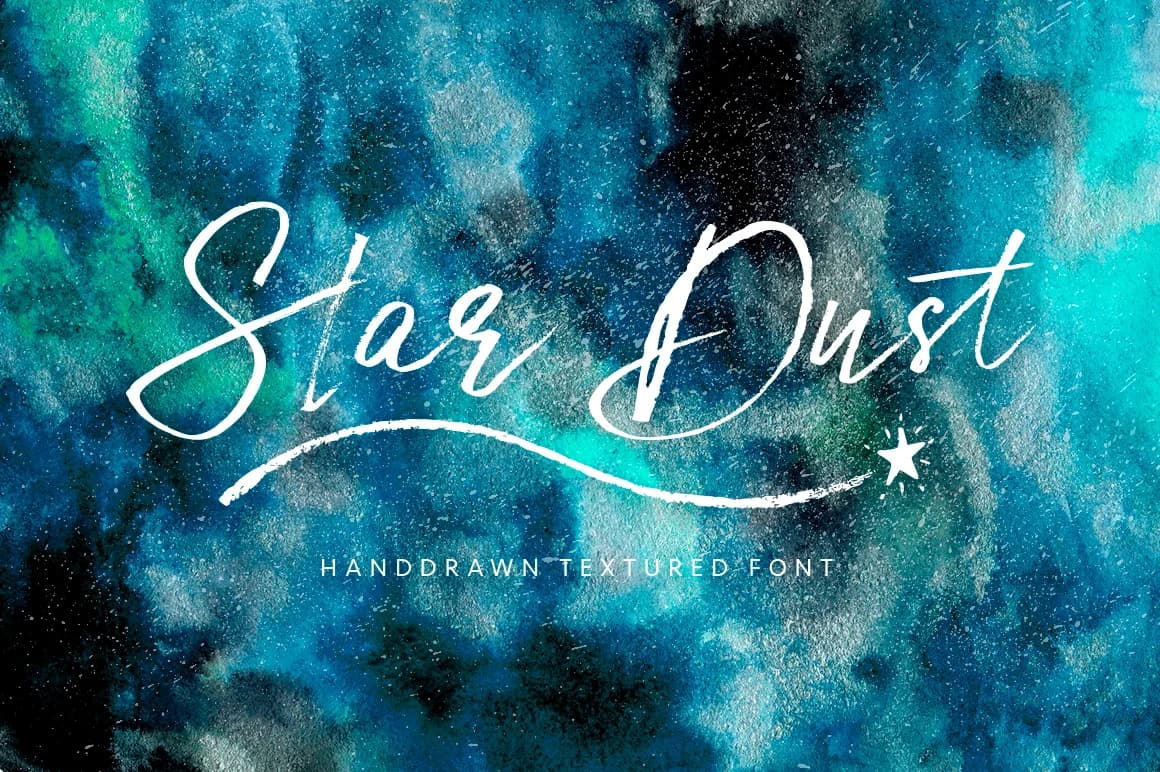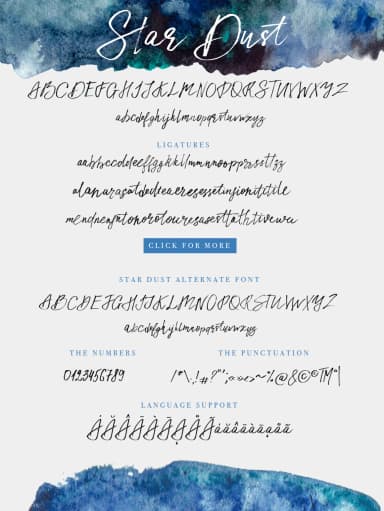
Star Dust by Red Ink is a flowing handwritten script that captures the energy of sketched letterforms with its hand-drawn texture and quick, expressive strokes. The font delivers dynamic character through organic linework, making it feel both casual and intentional in a way that appeals to contemporary design sensibilities. This typeface works exceptionally well for wedding invitation suites where a personal touch matters, custom greeting cards that stand out in inboxes, and boutique brand identity projects seeking that human-made quality. It's equally suited to product labeling for artisanal goods, personalized stationery designs, and event signage that benefits from warmth and personality. The inclusion of 26 swashes and ornaments, one variation set for each letter from A through Z, allows designers to add decorative flourishes and create visual interest without sourcing additional elements. Beyond the primary font, you also receive the complementary Stardust Doodle companion, expanding your creative options within a single package. Together, these fonts provide versatility for projects that need a cohesive handwritten aesthetic but varying levels of ornamentation and complexity. Get Star Dust and its Doodle companion on Creative Fabrica today.
Star Dust Font is a script font that shines as a display or heading face. Pair it with a clean sans-serif or serif font for body text β the contrast creates a clear hierarchy while the two styles stay balanced and easy to read.
Star Dust Font
by Red Ink